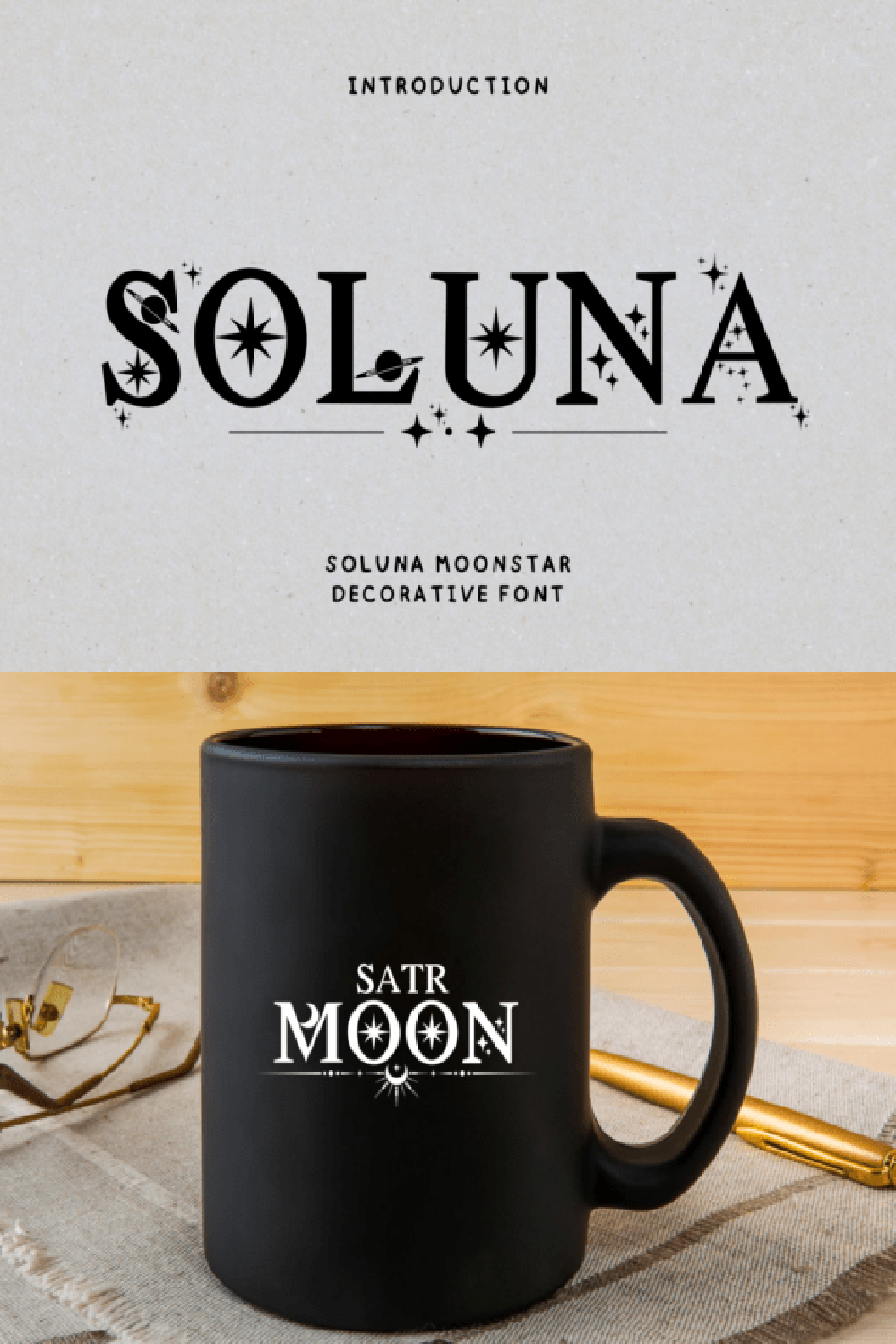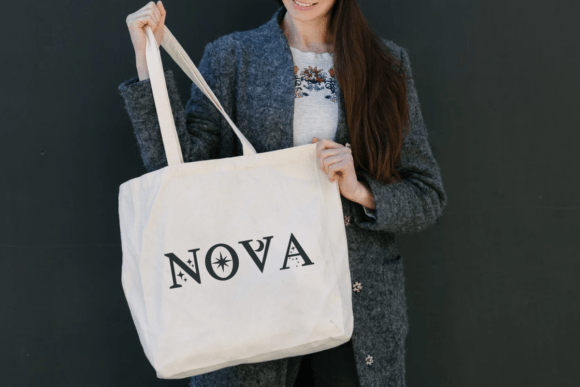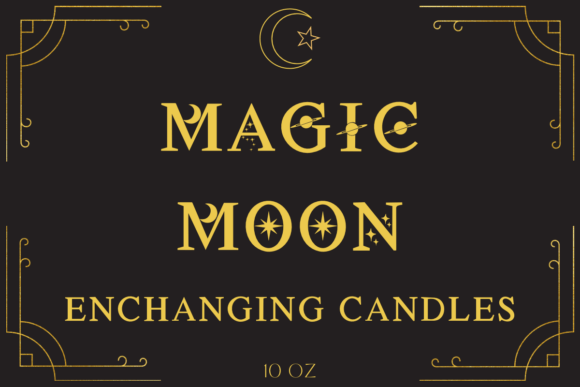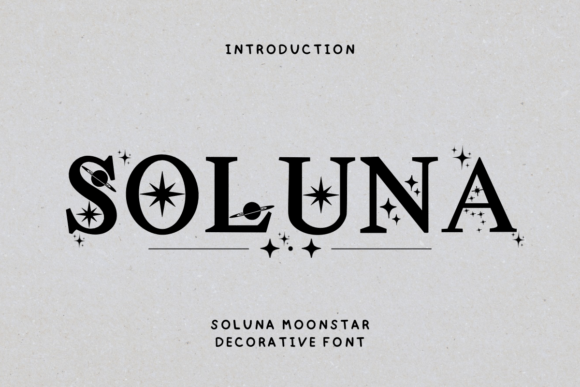
Soluna Font: Celestial Decorative Font for Unique Branding & Cricut Crafts
About the Soluna Font
Explore the possibilities with Soluna Font, a font that offers both beauty and functionality. Introducing Soluna – a splendidly decorative typeface designed to bring a touch of artistic flair to any of your creative endeavors. Whether it’s for jotting down thoughts in your journal, penning personal notes, or crafting heartwarming greeting cards, Soluna is an ideal choice. But the versatility of Soluna doesn’t stop there. It effortlessly enhances the appeal of various designs including banners, captivating content, drinkware, stationery, shirts or even in the digital realm on social media posts. Let Soluna add a dash of elegance to your creation, making it memorable and distinctive!